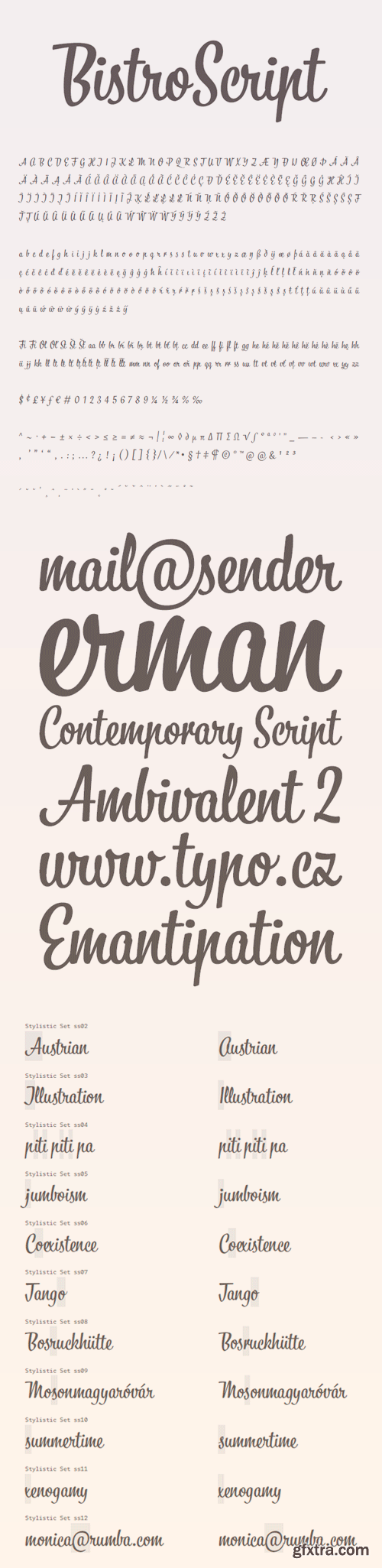
BistroScript is a contemporary calligraphic script inspired by promotional art in the 1960s. Thanks to OpenType features, a variety of ligatures and alternative glyphs allow the user to create more authentic and varied connections between letters. Used thoughtfully, BistroScript is guaranteed to enhance any print job.